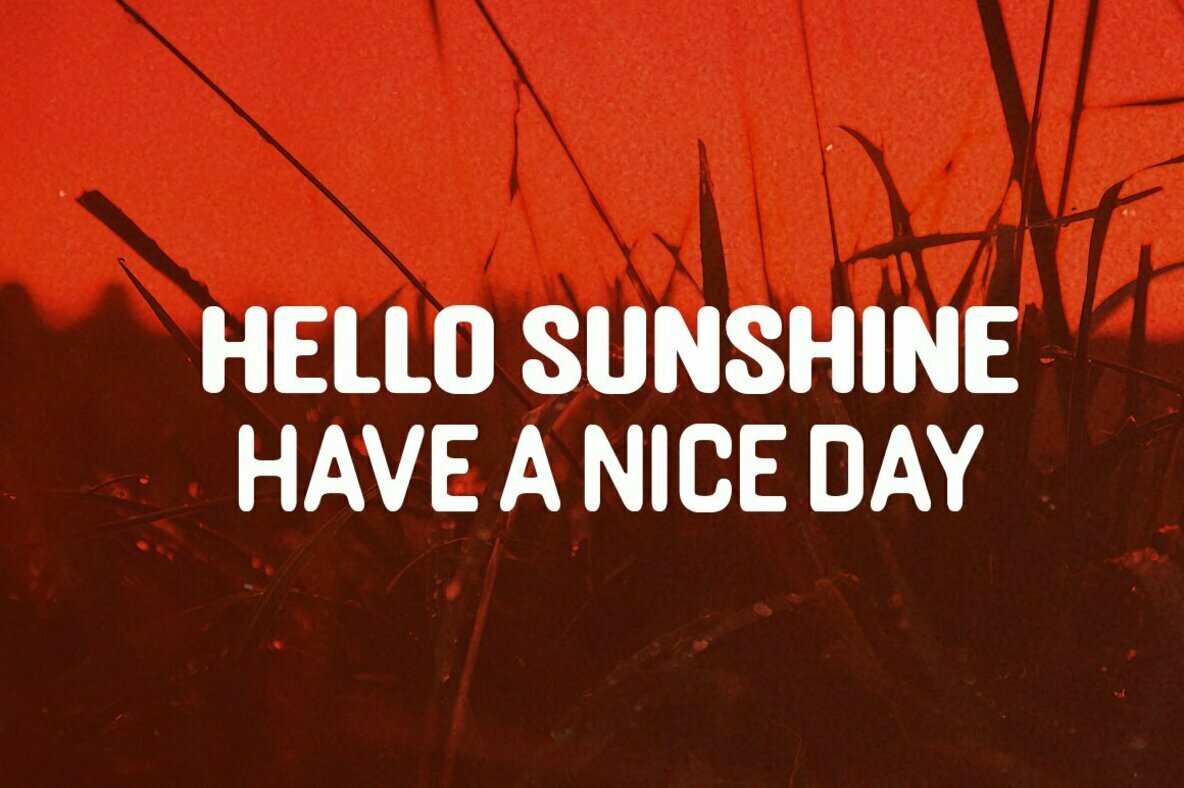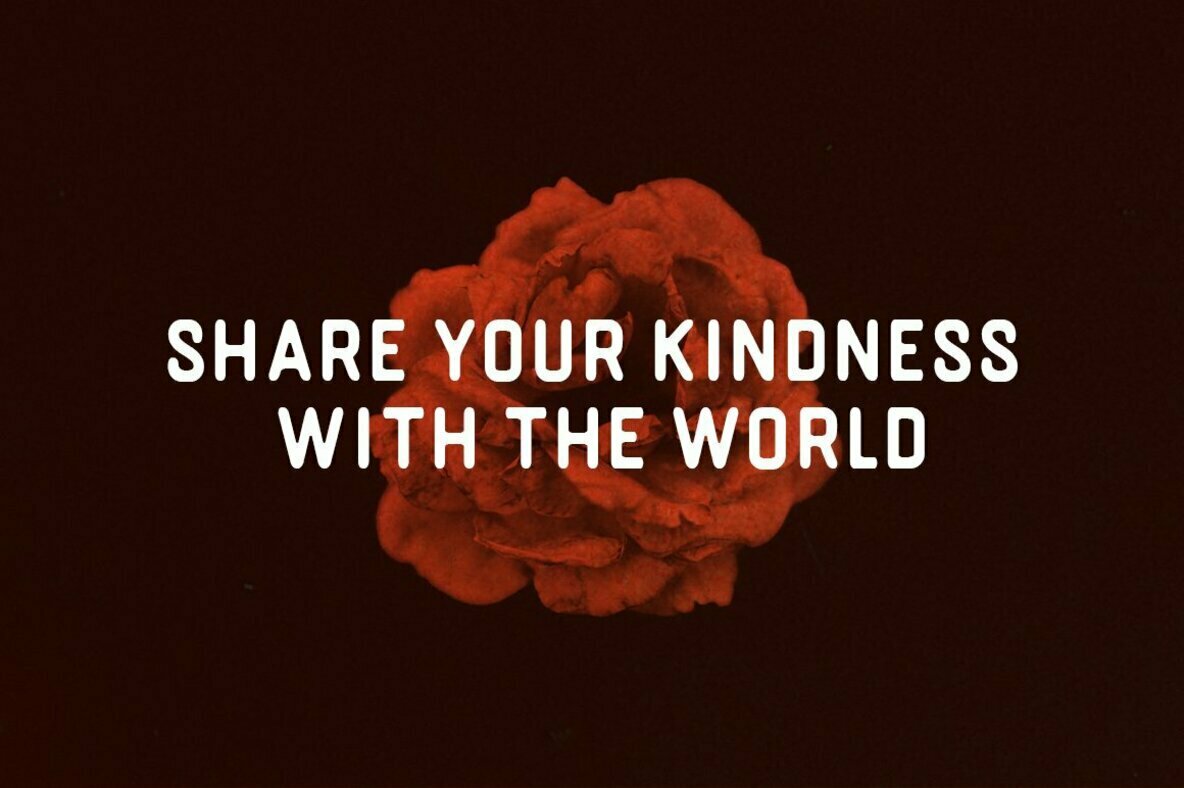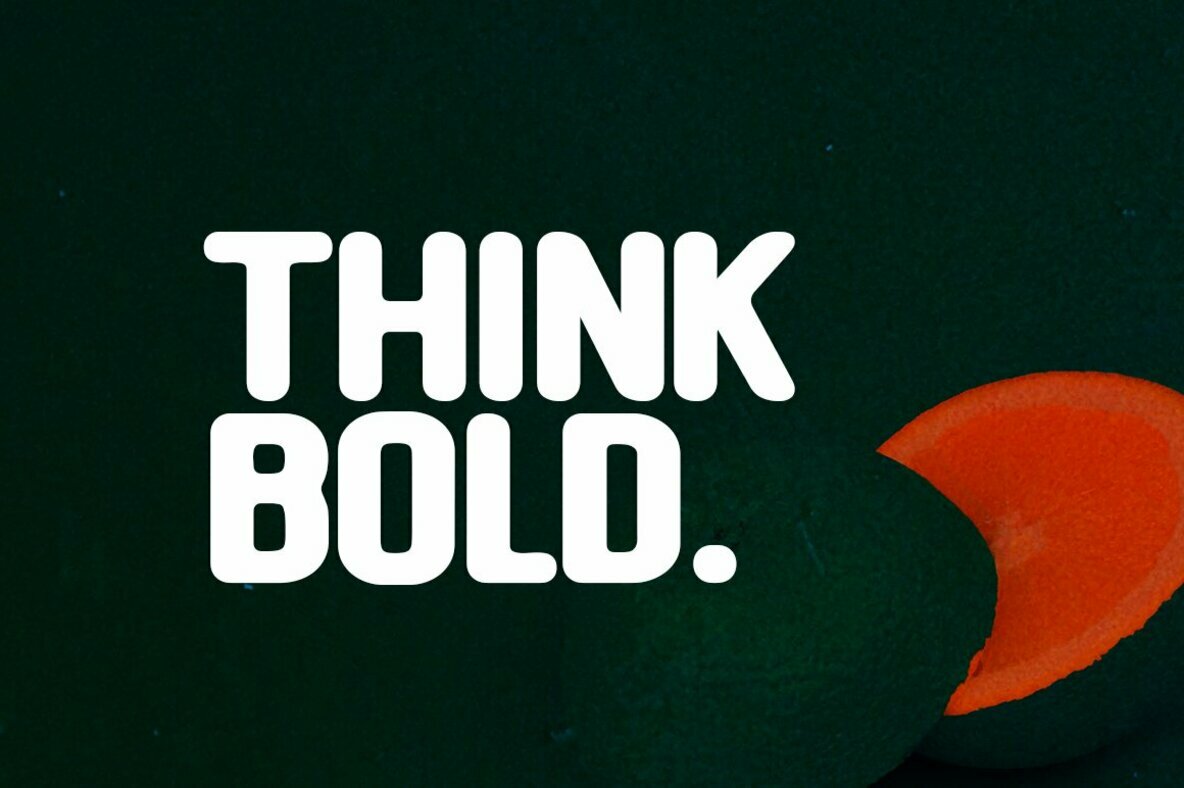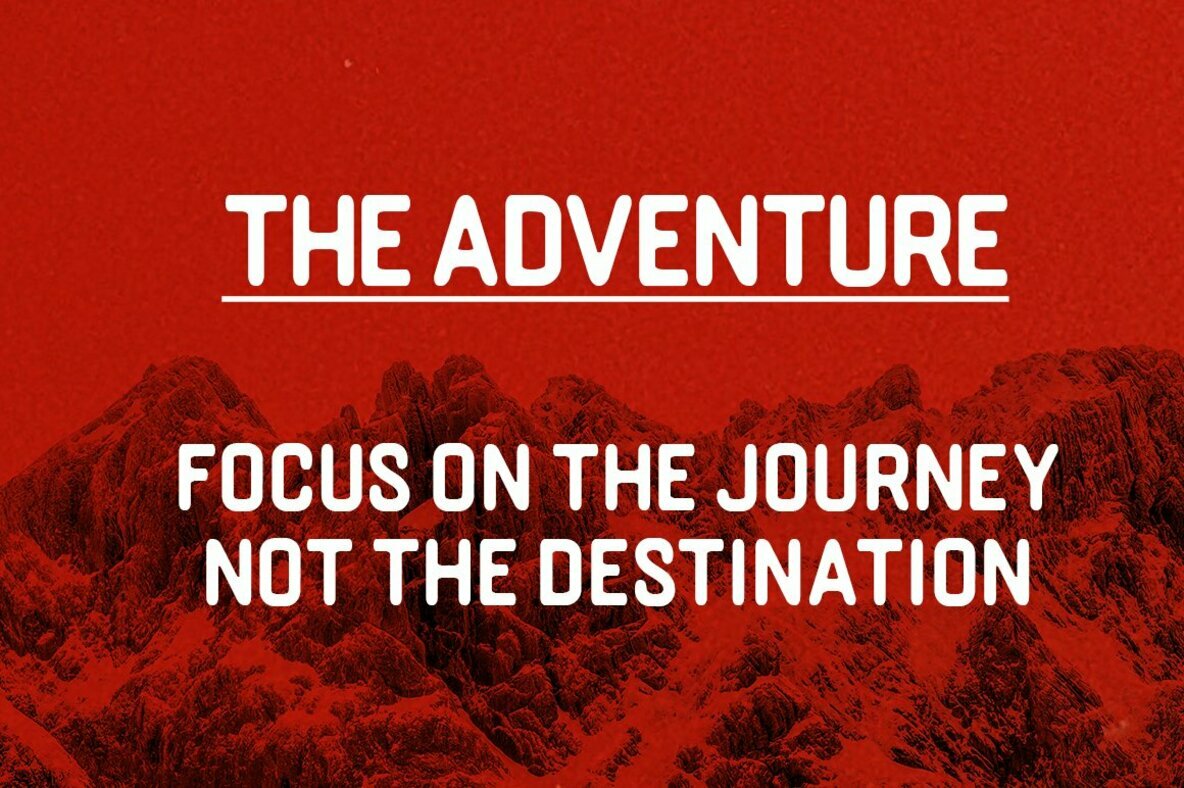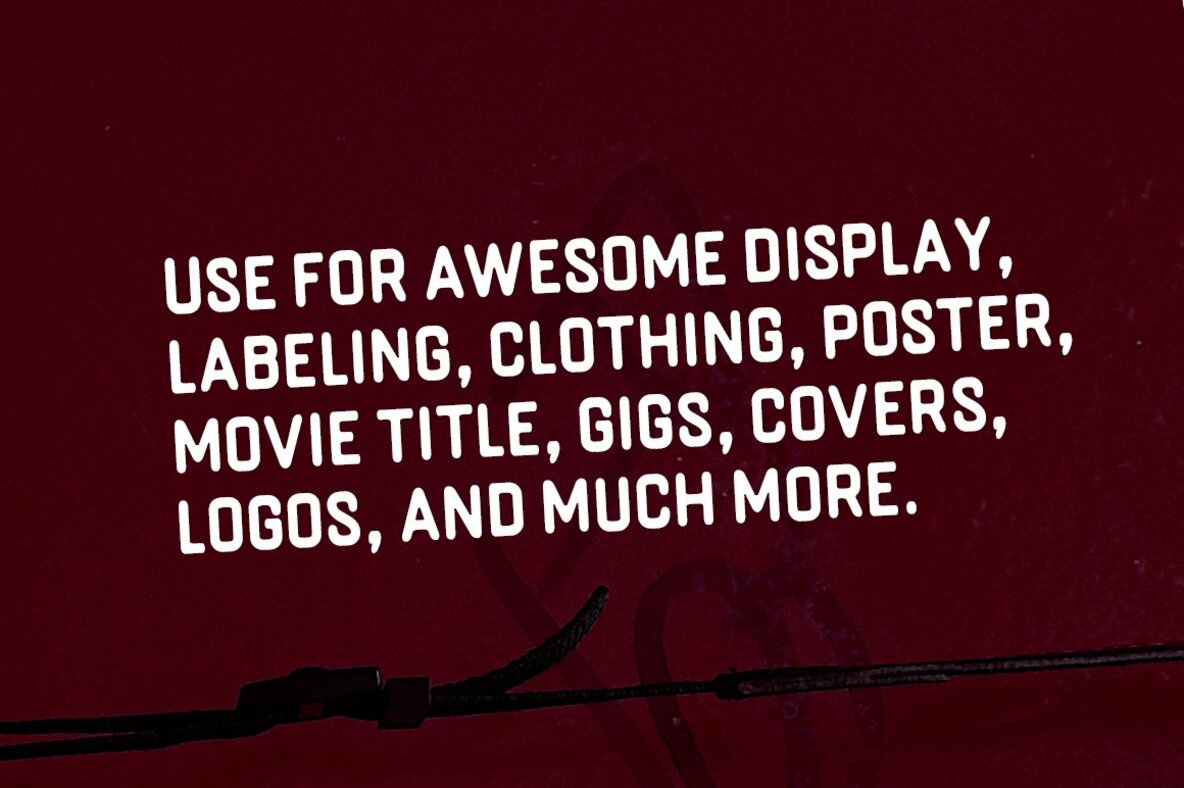
Bringme Font
Bringme commands attention with its robust and rounded edges, perfect for creative projects that require a strong visual impact. Ideal for posters, social media content, headlines, and large-format prints, this typeface stands out with its impressive weight and presence.Bringme: A Bold Typeface With Rounded Appeal